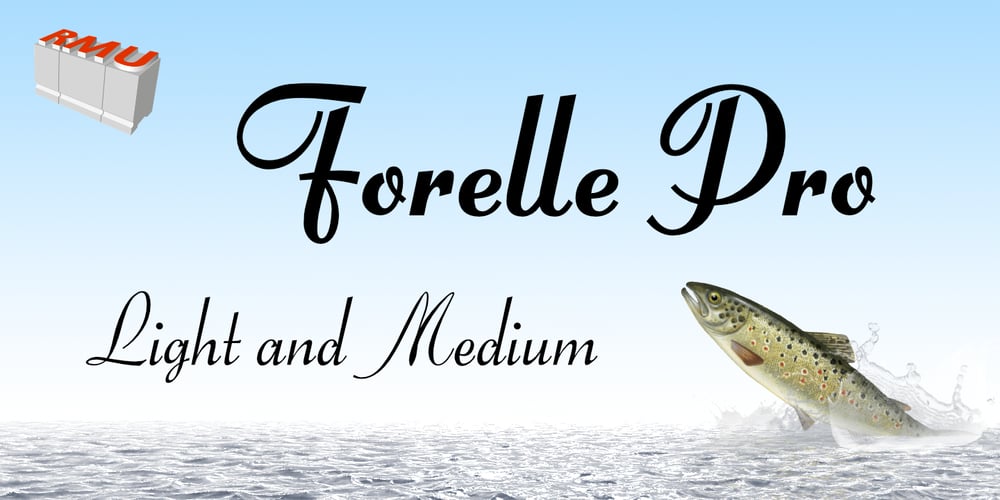
Forelle Pro
Forelle Pro font
Forelle Pro Font Family was designed by Ralph M. Unger, Erich Mollowitz and published by RMU. Forelle Pro contains 2 styles and family package options. The basic forms stem from Erich Mollowitz’ version which he cut for Trennert in 1936. These fonts were completely redrawn, extended with East European letterforms and some OpenType features. They are well suited for more formal invitations, headlines and subtitles, for diplomas and certificates.